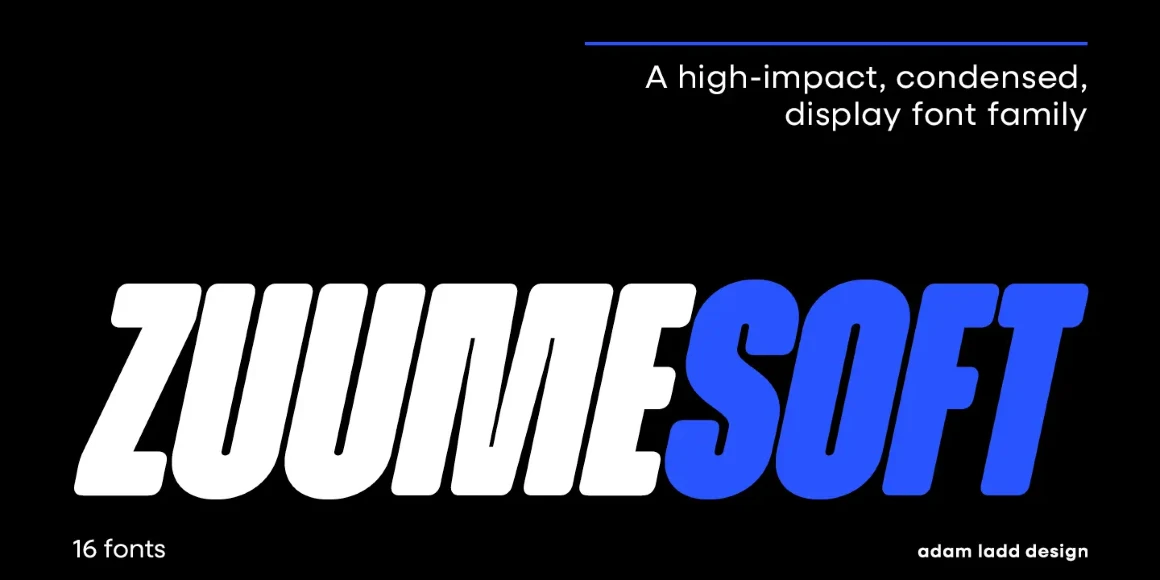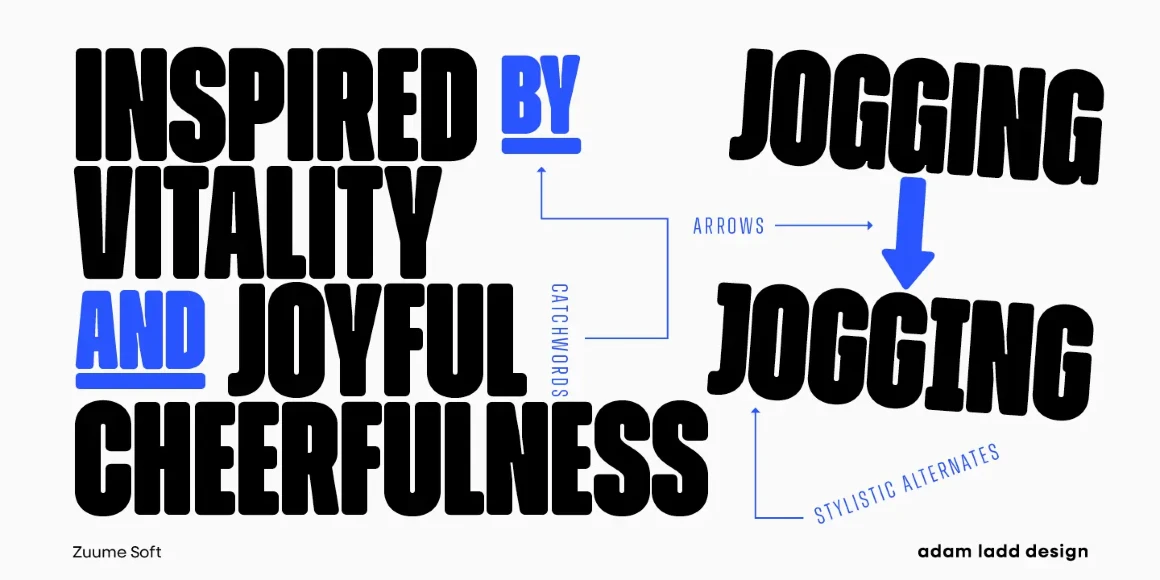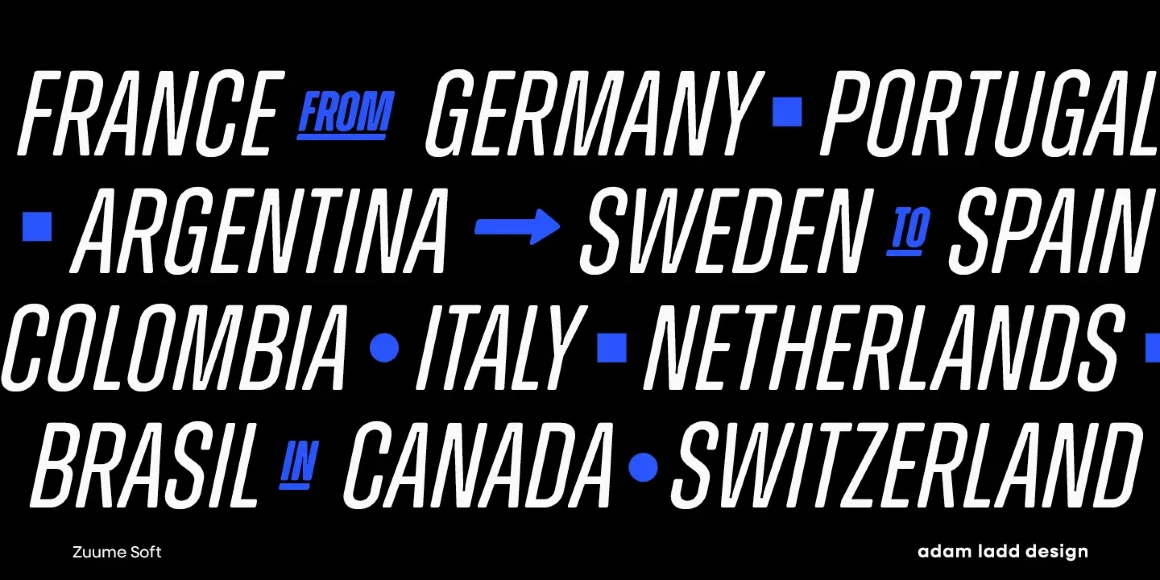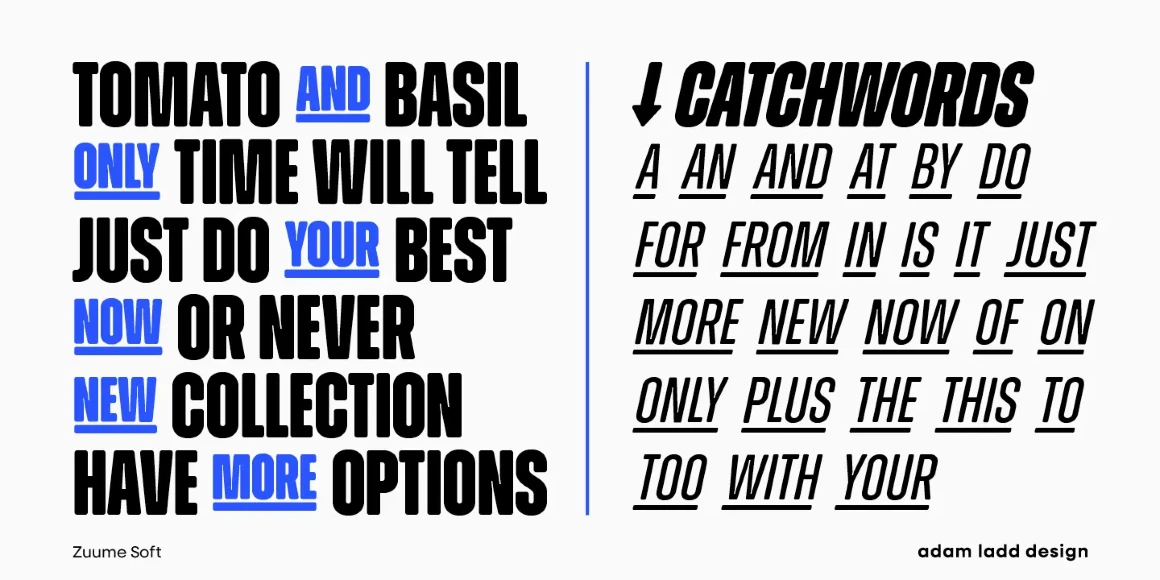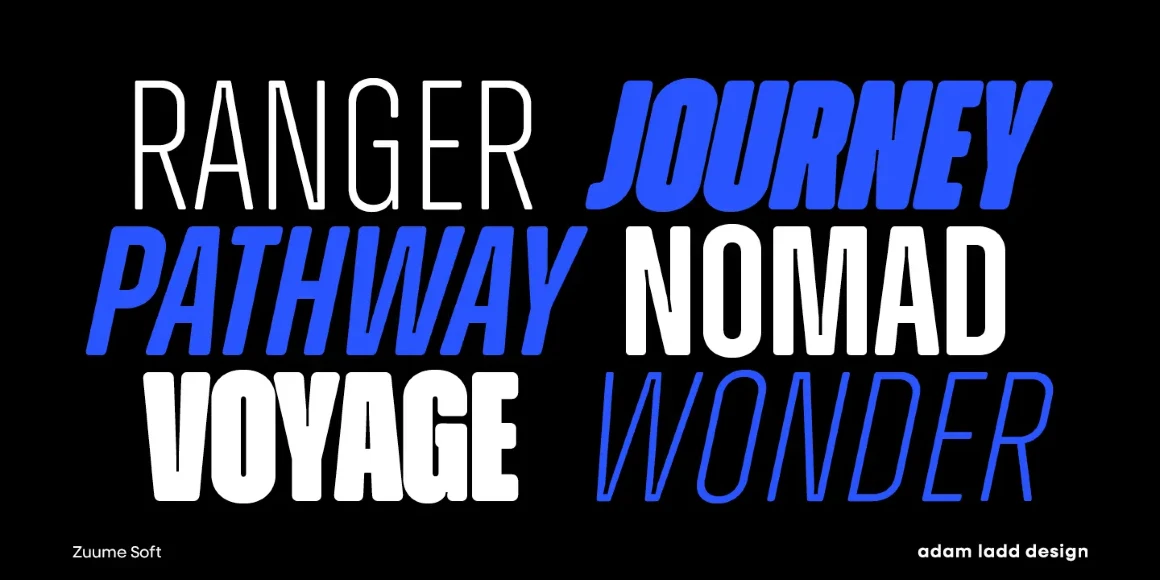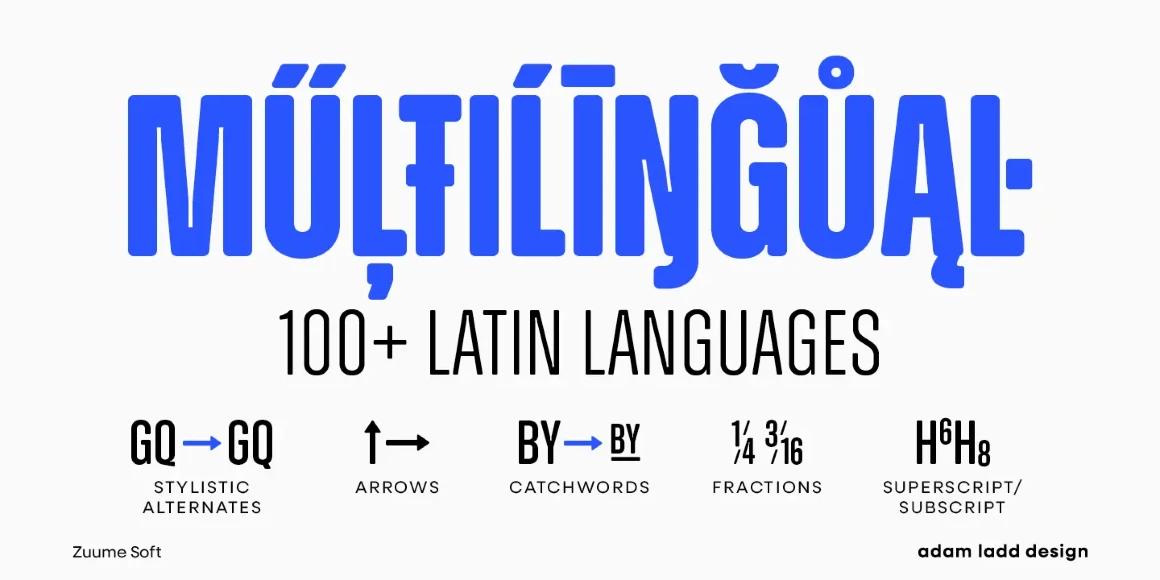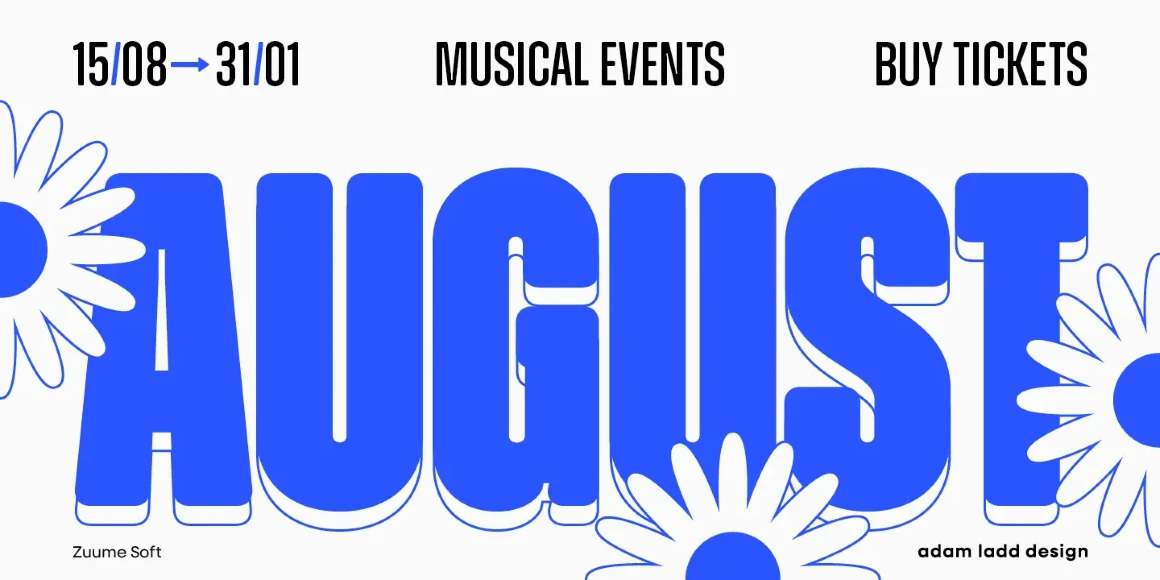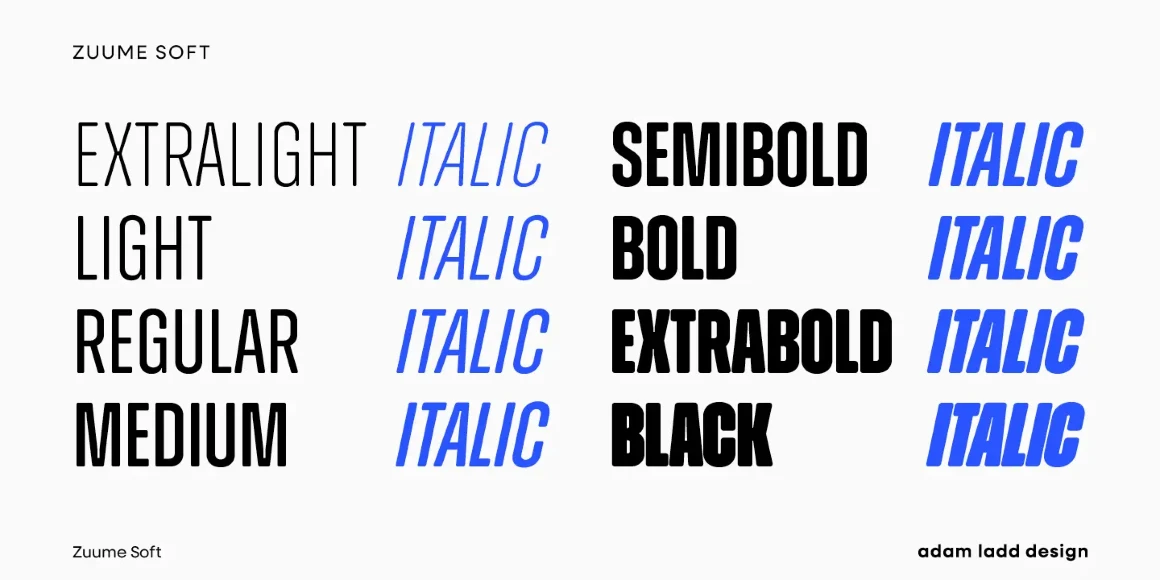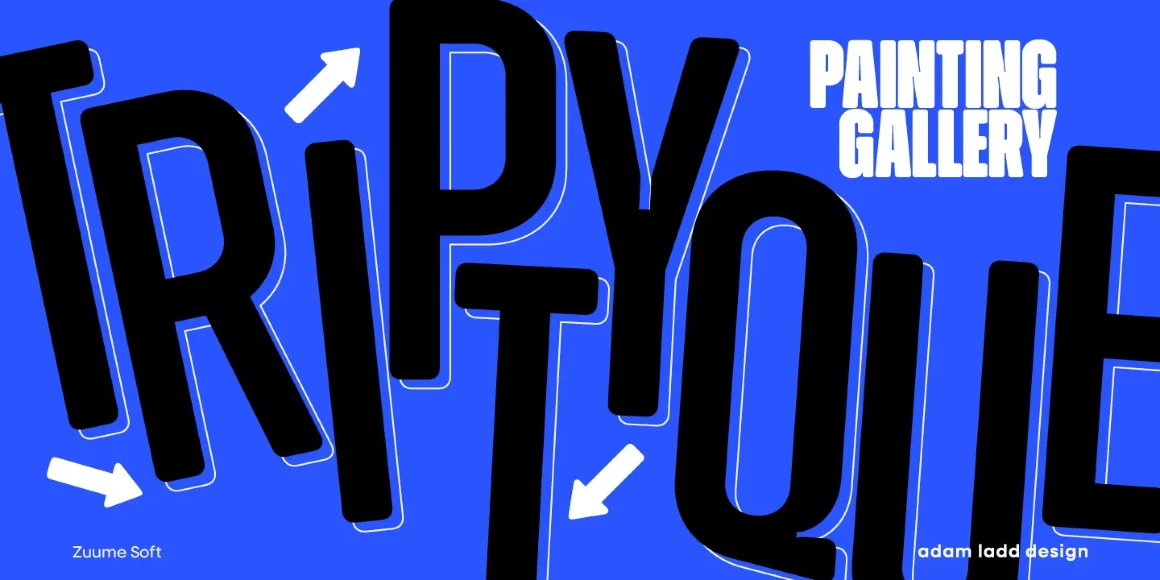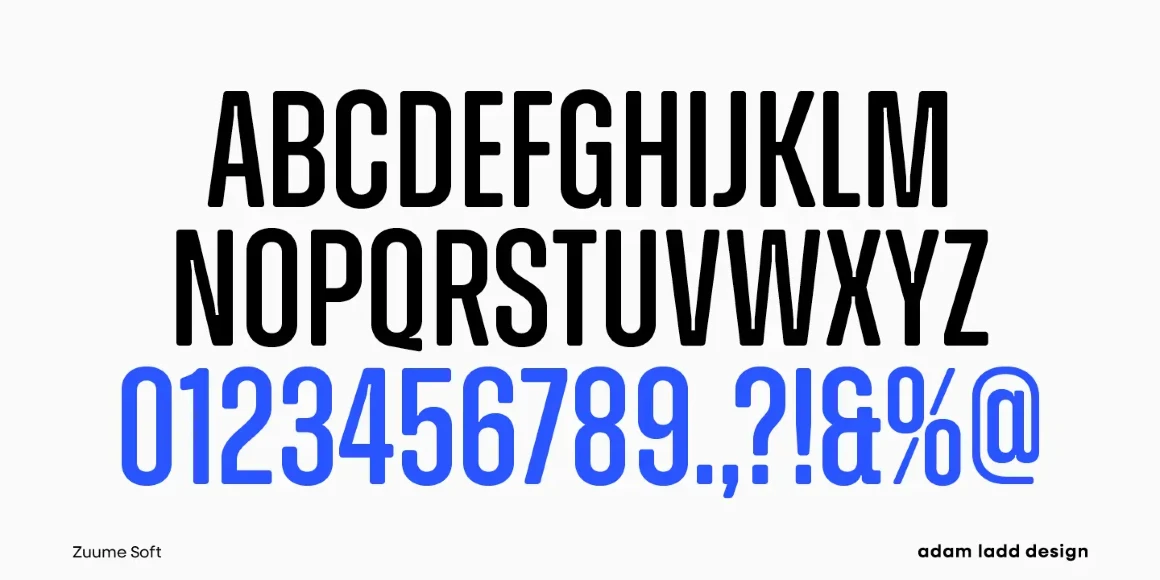
Zuume Soft
By Adam Ladd
Zuume Soft is a charismatically dichotomous condensed sans. Sister to Zuume, it is staunchly upright in its stance, but round where corners should exist. This family will enliven magazine headlines, media brands, fitness packaging, kidlit book covers, in-your-face sports entertainment, festival posters, or anywhere else designers want to create playful drama. The family ranges from a delicate Light to an impactful Black. Use the compelling and versatile Zuume Soft and make your voice heard.